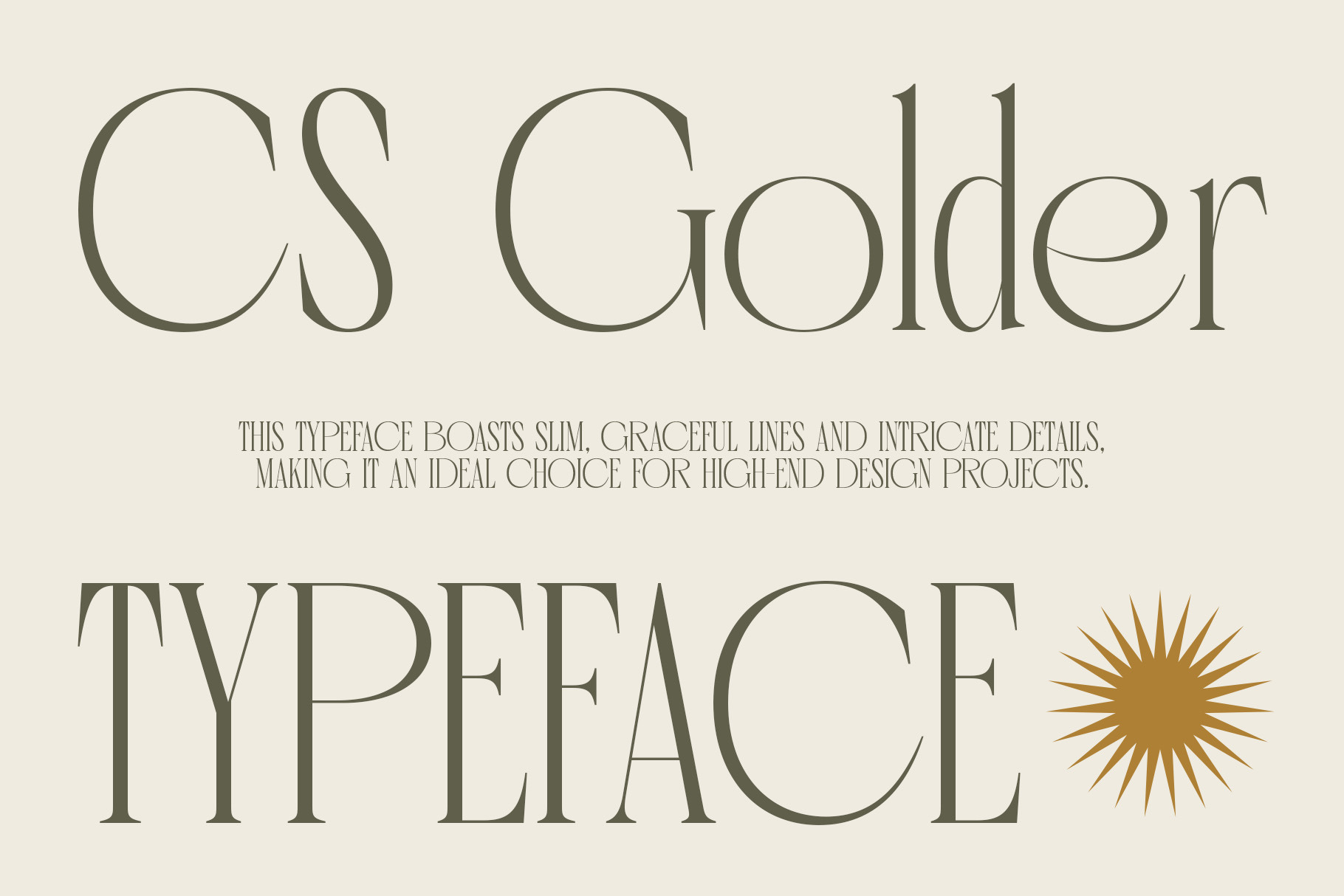
CS Golder – Condensed Font
CS Golder – Condensed Font: Sleek Elegance with Refined Sophistication
Modern Condensed Serif Design CS Golder is a modern serif font featuring a condensed design that exudes distinctive elegance. Its narrow, streamlined appearance makes it ideal for projects requiring a refined and sophisticated touch.
Condensed Form for a Sleek Look The condensed form of CS Golder provides a sleek and narrow profile, perfect for designs where space is limited but elegance is essential. This design choice allows the font to fit neatly into compact spaces while maintaining a stylish presence.
Refined Letterforms for Enhanced Clarity Special attention is given to letterforms, particularly in rounded shapes like “O” and “C,” which are slightly expanded to balance compactness with legibility. This refined design enhances clarity while preserving an elegant aesthetic, making the font both practical and stylish.
Polished and Stylish for High-End Projects CS Golder’s overall effect is a polished, sophisticated typeface ideal for high-end branding, professional documents, and any project that aims to convey modern elegance and class. Its condensed design and refined characteristics make it a versatile choice for a variety of professional applications.
- CS Golder Regular
- CS Golder Italic
- CS Golder Reverse Italic